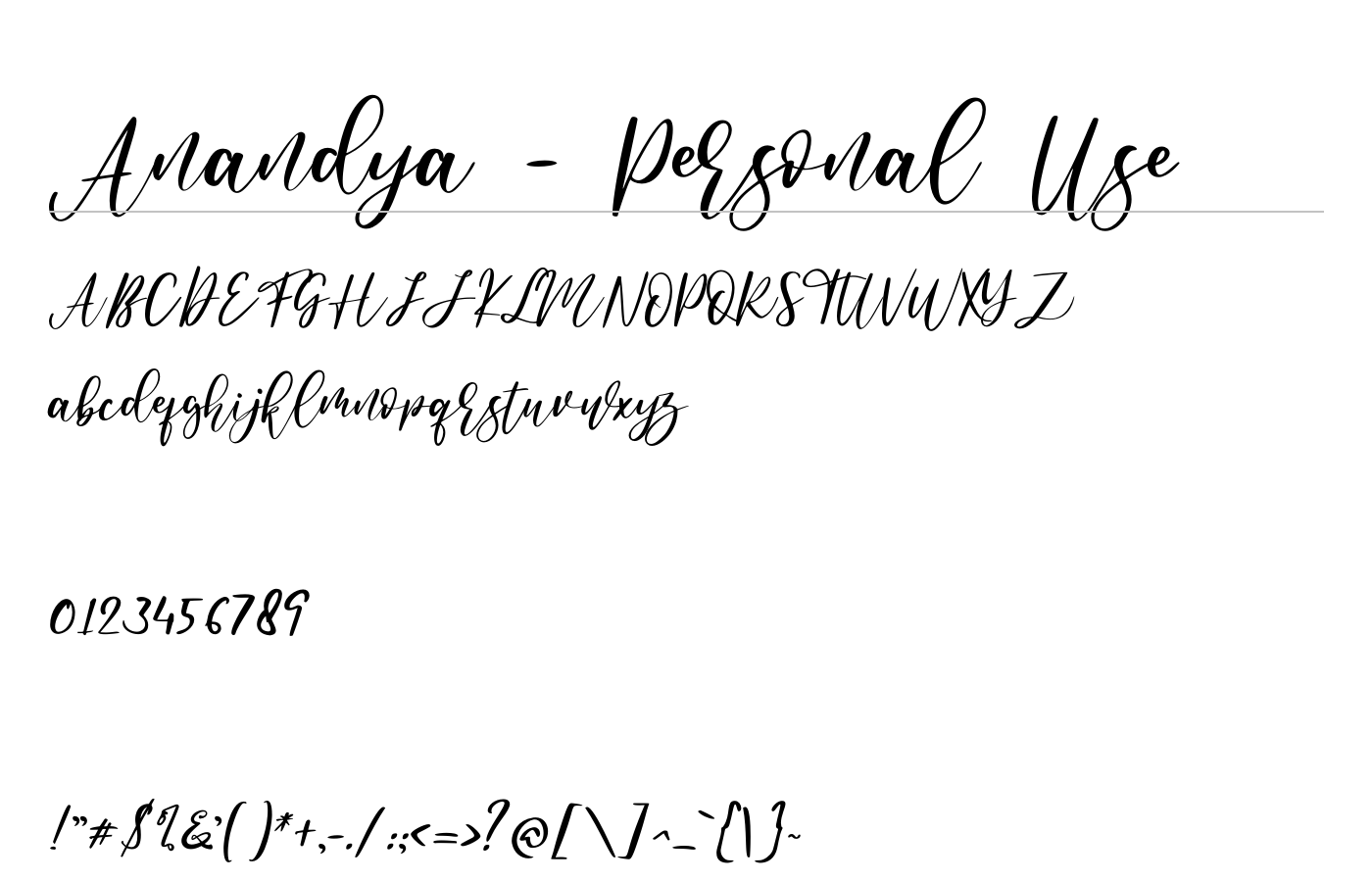
Anandya is an elegant, handwritten script font characterized by its smooth, flowing strokes and refined calligraphic style. Its delicate lines and natural curves give it a personal, artistic feel, making it perfect for wedding invitations, branding, and any project that seeks a graceful, sophisticated touch. This font works beautifully in headlines, logos, and packaging where a warm, handwritten elegance is desired.
Anandya - Personal Use Font